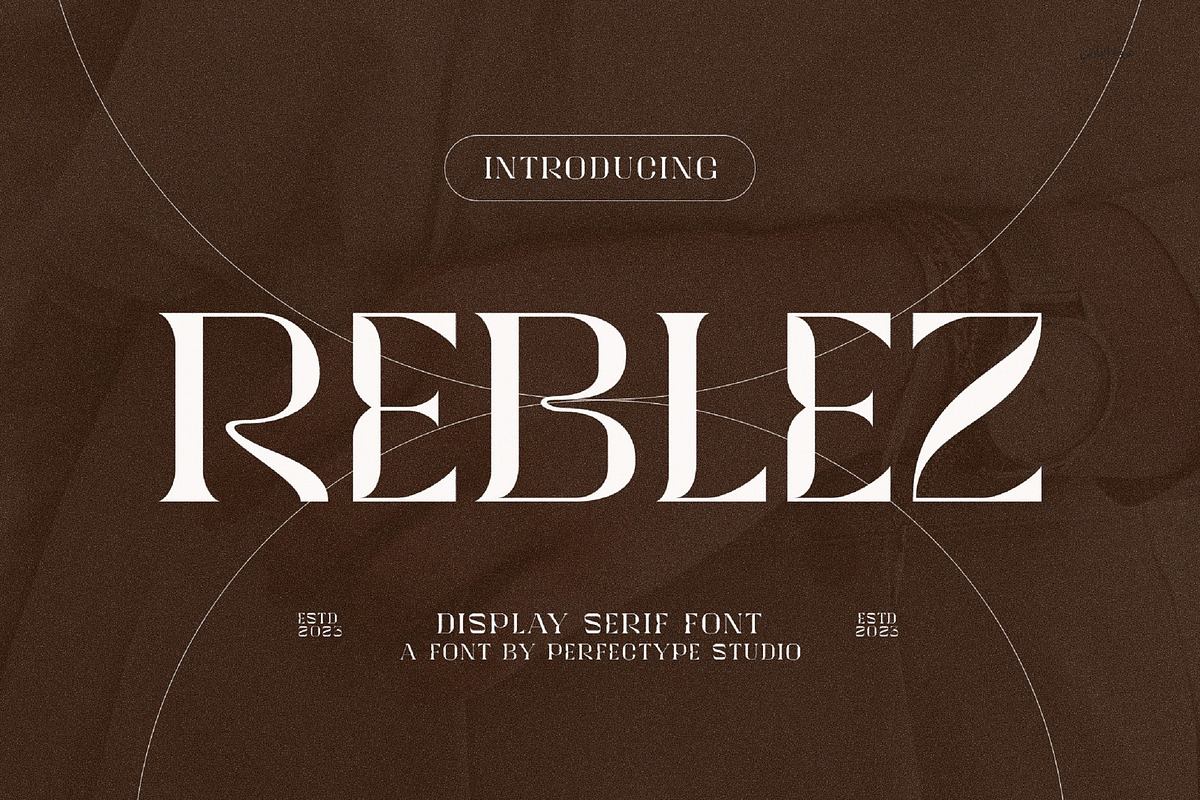
Reblez Elegant Serif Font Typeface Free Download
Reblez Elegant Serif Font Typeface combines timeless elegance with modern sophistication. This font is perfect for high-end branding, editorial designs, and elegant logos. Download Reblez Elegant Serif Font Typeface Free Download today and bring a touch of class to your creative projects!